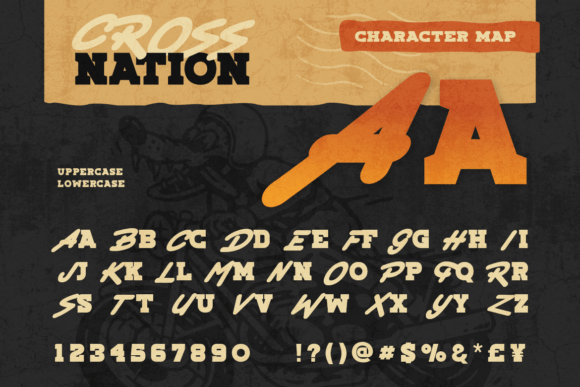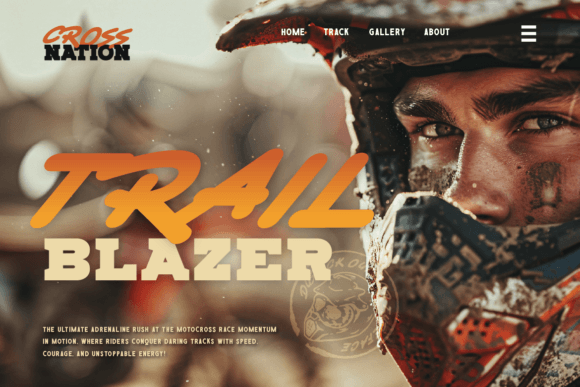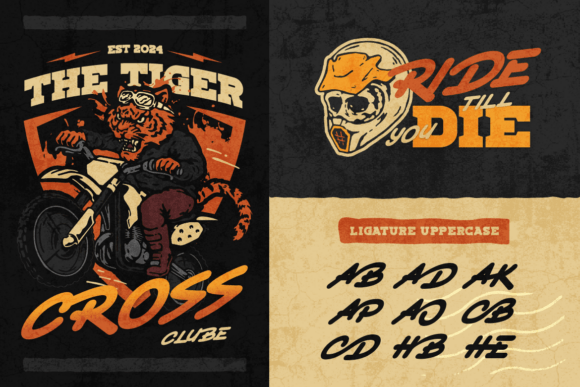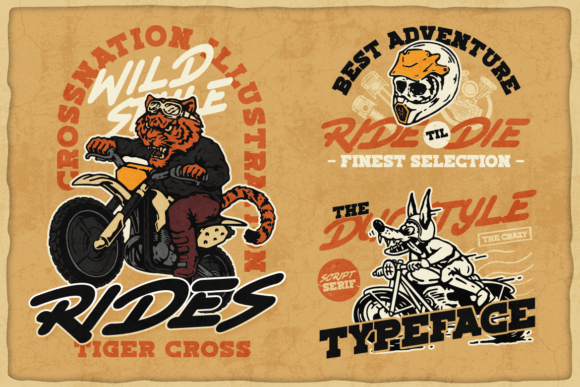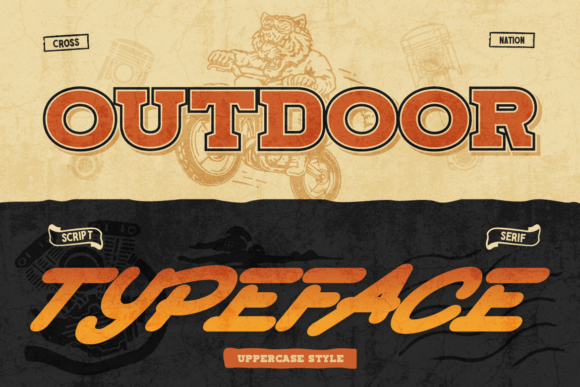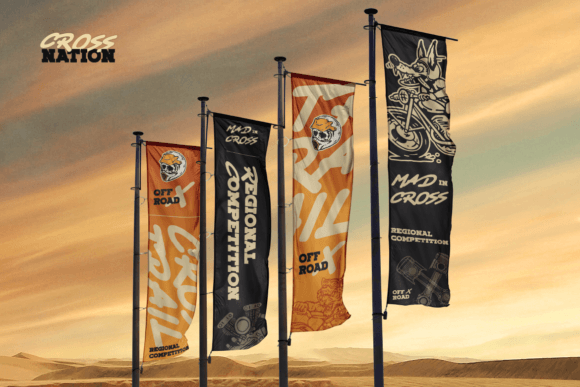
Introducing Crossnation: The Ultimate Duo Font for Adventure-Seekers
I’ll never forget the time I was working on a project for a motorcross event, and I just couldn’t find the right font to capture the essence of speed, adventure, and boldness. My client wanted something that would grab attention and convey the thrill of the sport. That’s when I stumbled upon Crossnation, a game-changing duo font that combines serif and script with a motorcross theme. In this article, I’ll share my experience with Crossnation, its features, and how to make the most of it in your designs.
A Personal Review: What I Love and What I Think Could Be Improved
- ✅ The perfect blend of serif and script, giving it a unique and adventurous feel
- ✅ Ligatures that add an extra touch of wild energy and style
- ✅ Multilingual support, making it perfect for global use
- ✅ The bonus vector pack that adds even more value to your designs
While Crossnation is an amazing font, I did notice a few minor limitations. For instance, some users might find the font a bit too bold for certain design applications. Additionally, the script part of the font can be a bit tricky to read at smaller font sizes.
- 🤔 Might be too bold for certain design applications
- 🤔 Script part can be tricky to read at smaller font sizes
How to Use Crossnation: A Practical Guide
The Story Behind Crossnation
Crossnation was designed with the thrill of motorcross in mind. The designer wanted to create a font that would capture the speed, adventure, and boldness of the sport. With its unique blend of serif and script, Crossnation is the perfect font for designers who want to add a touch of excitement to their designs.
Q: What makes Crossnation unique?
A: Crossnation is unique because of its blend of serif and script, along with its motorcross theme and added ligatures.
Q: Is Crossnation suitable for global use?
A: Yes, Crossnation features multilingual support, making it perfect for global use.
Q: What is the bonus vector pack that comes with Crossnation?
A: The bonus vector pack includes additional design elements that can be used to add more value to your designs.